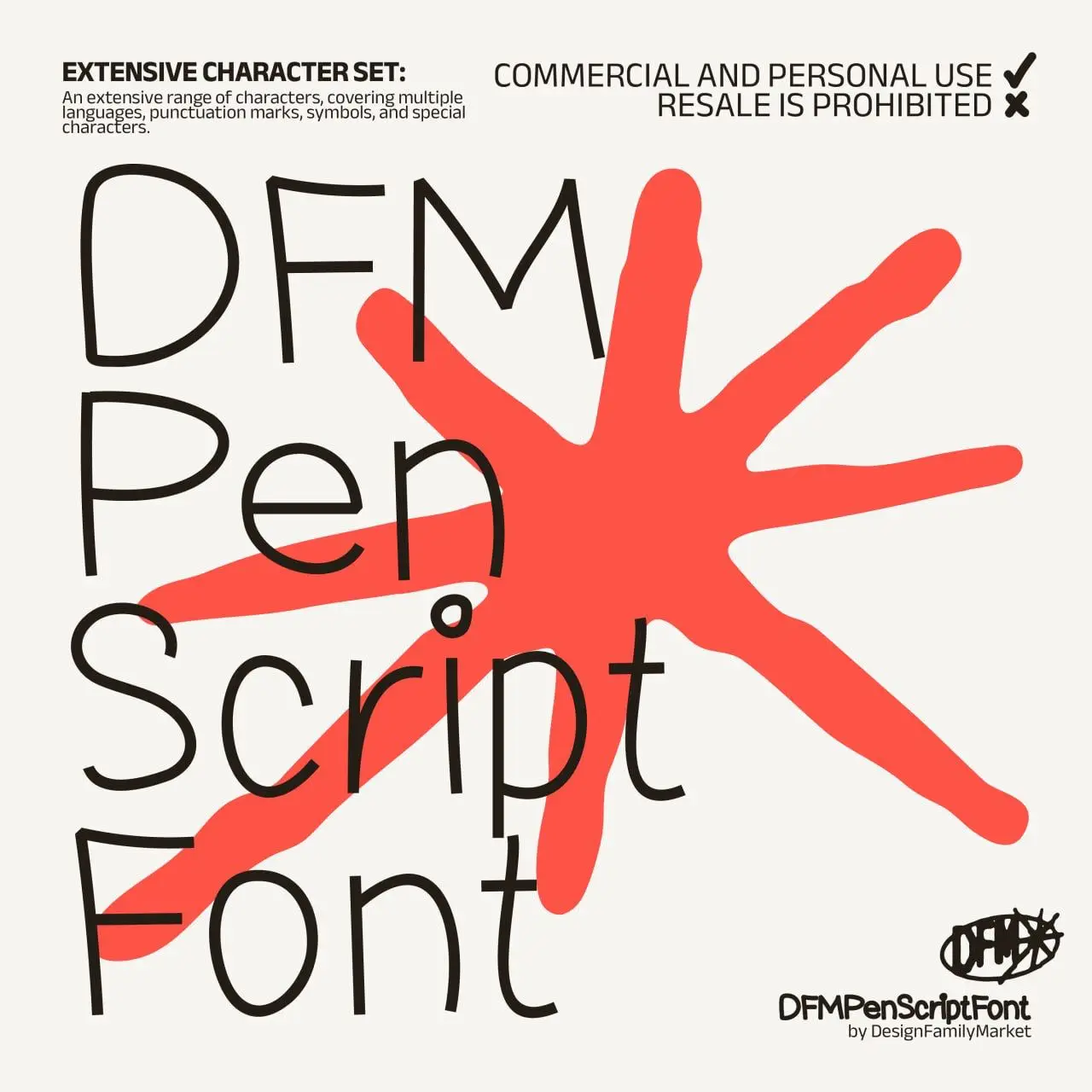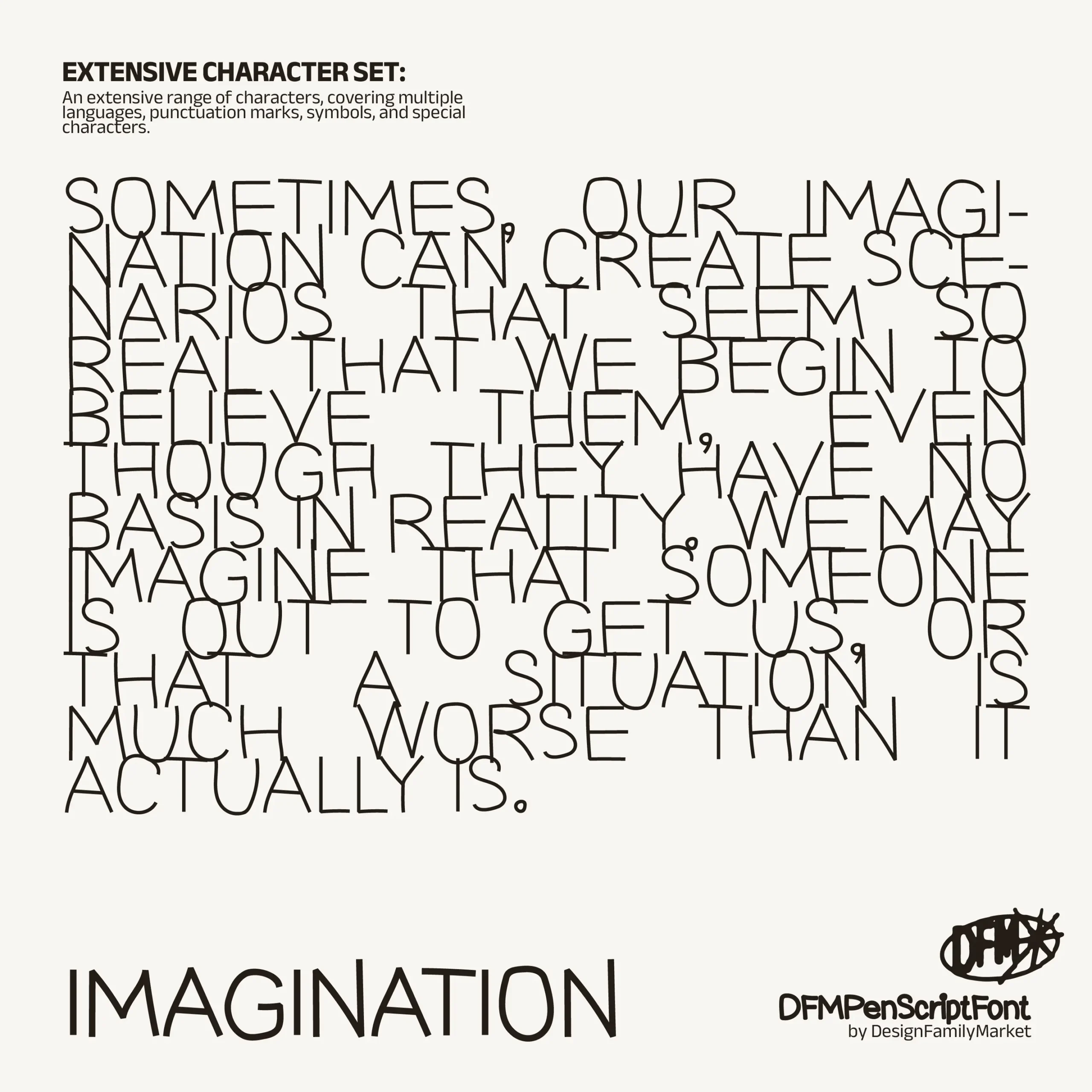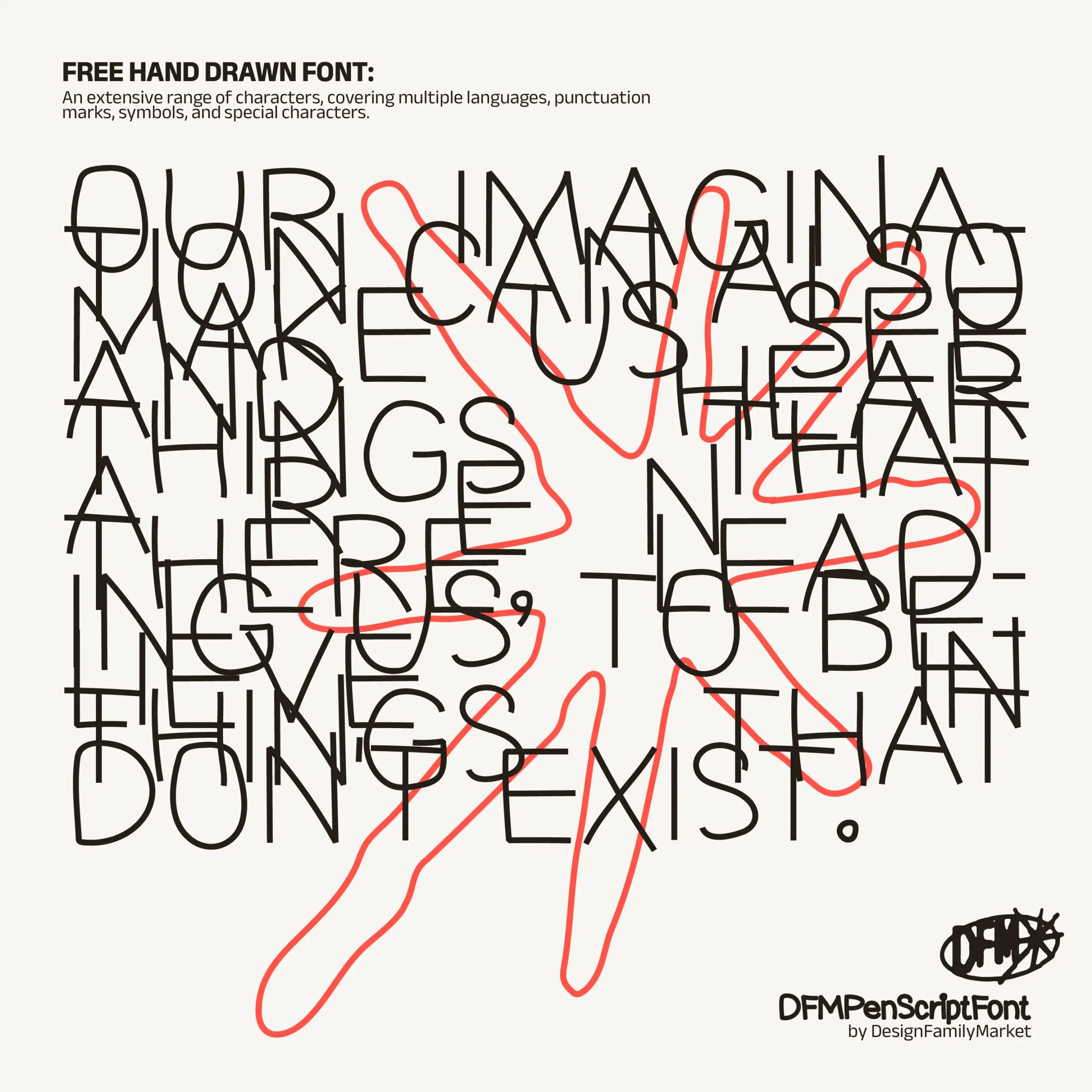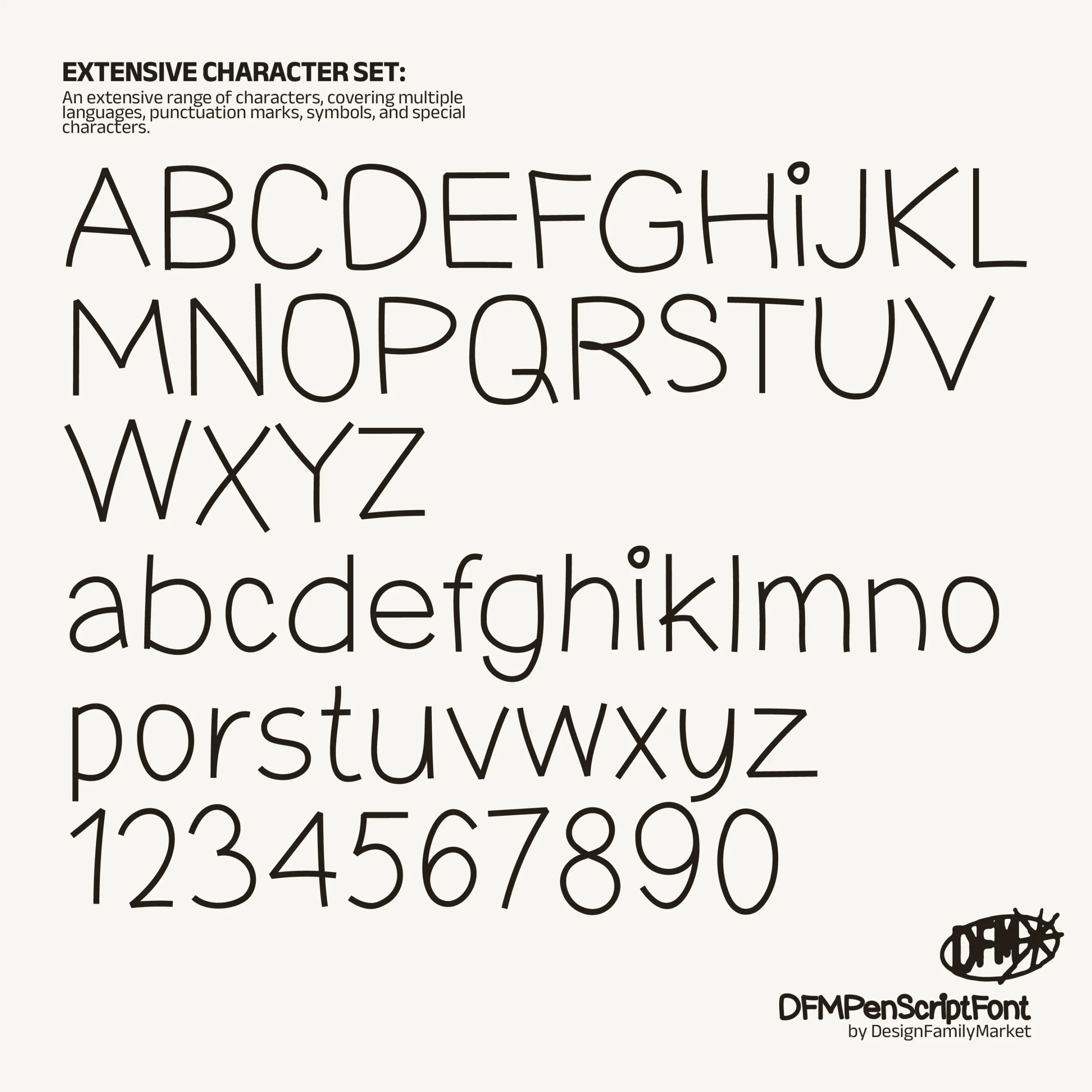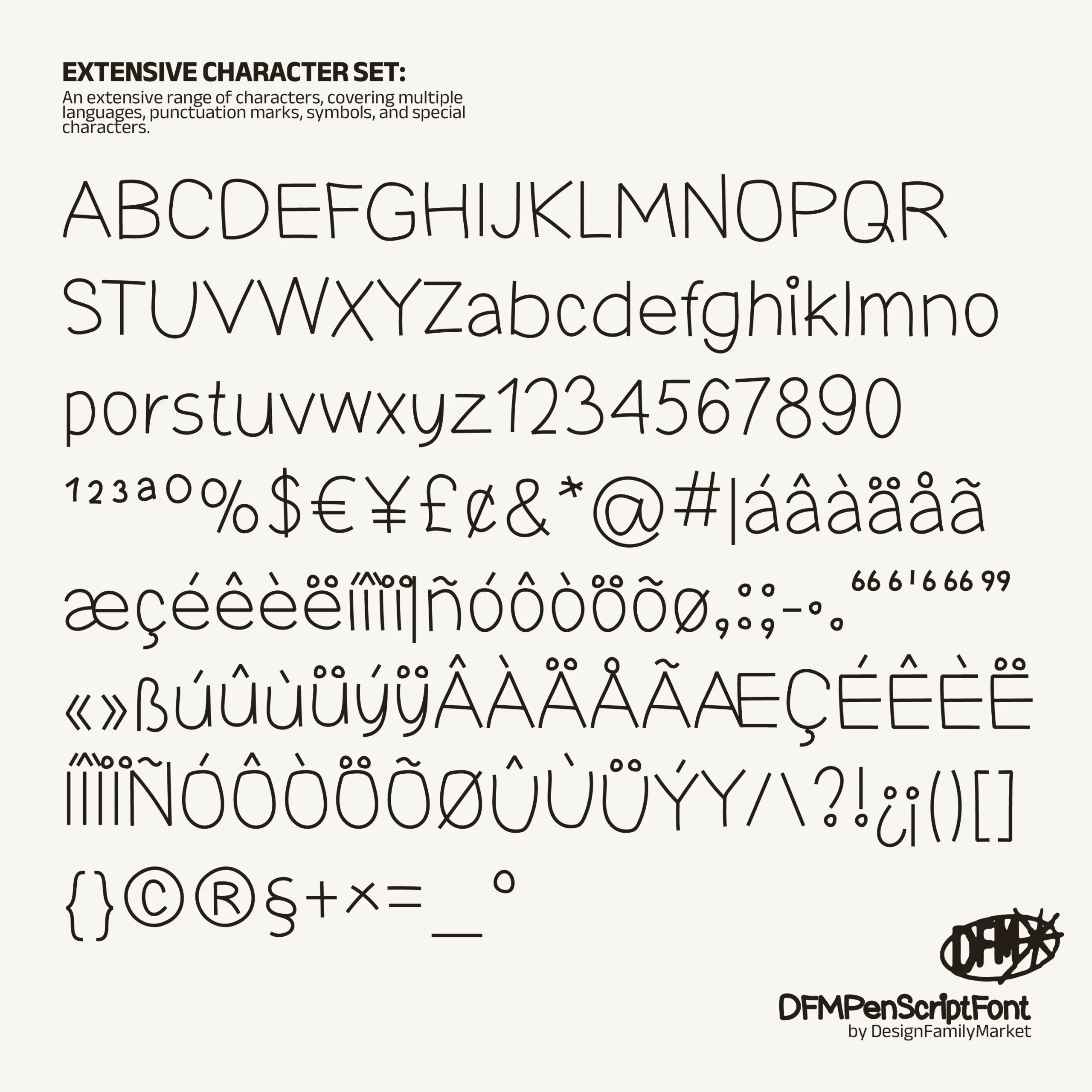
DFM Pen Script Font – Hand-Drawn Linear Doodle Font
Introducing the DFM Pen Script Font, a delightful hand-drawn linear doodle font that embodies the playful spirit of childhood. Its pen-like strokes and simplistic design make it an ideal choice for adding a whimsical flair to your projects. Whether you’re designing for children or simply want to evoke a sense of fun, this font is your perfect companion.
The DFM Pen Script Font is designed for creatives looking to infuse their work with a youthful and charming aesthetic. This font captures the essence of a child’s handwriting, making it perfect for invitations, greeting cards, and any project that requires a touch of innocence and joy.
- ✅ Hand-Drawn Style → Adds a personal touch to your designs, making them feel unique and inviting.
- ✅ Versatile Use → Perfect for various projects including children’s books, posters, and digital content.
- ✅ Whimsical Aesthetic → Infuses your work with a playful vibe, appealing to a wide audience.
The DFM Pen Script Font stands out due to its unique hand-drawn appearance, making it a favorite among designers who value authenticity and creativity. This font not only enhances the visual appeal of your projects but also resonates well with audiences, evoking feelings of nostalgia and warmth. Trusted by creatives worldwide, it’s the perfect choice for anyone looking to add a special touch to their designs.